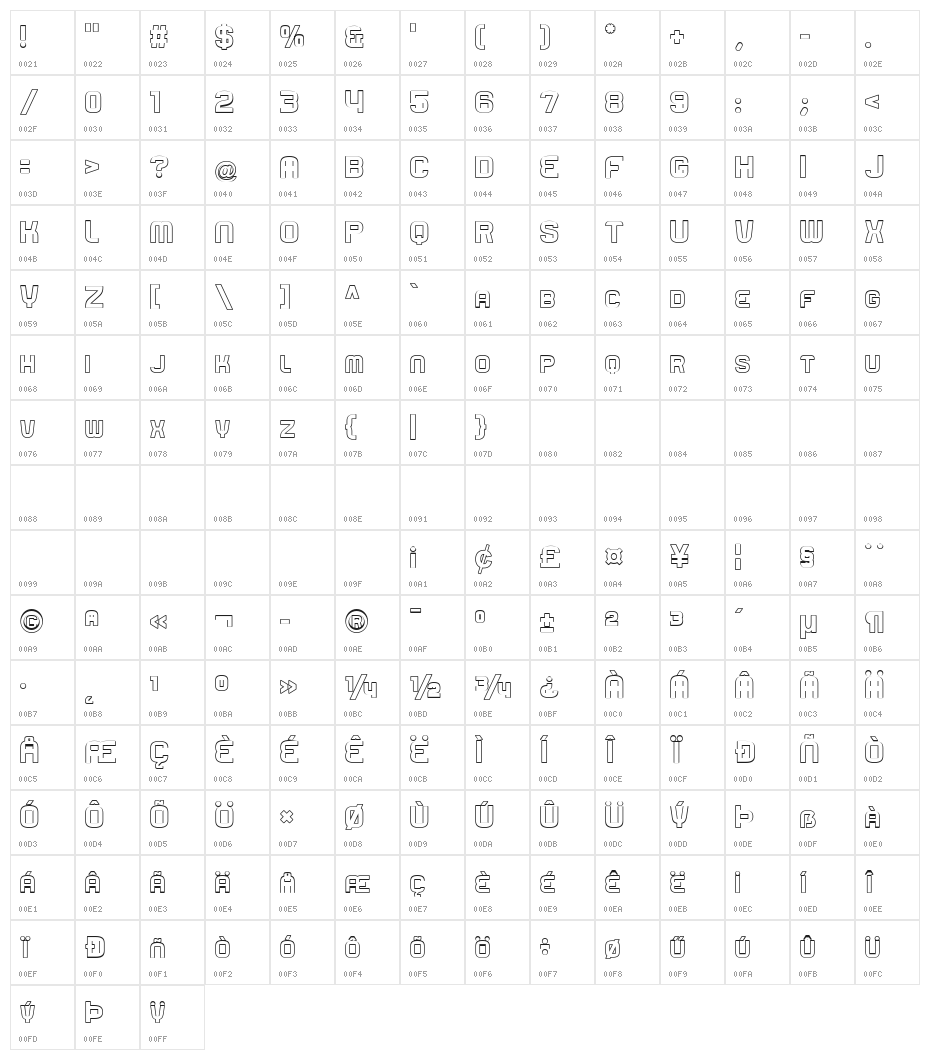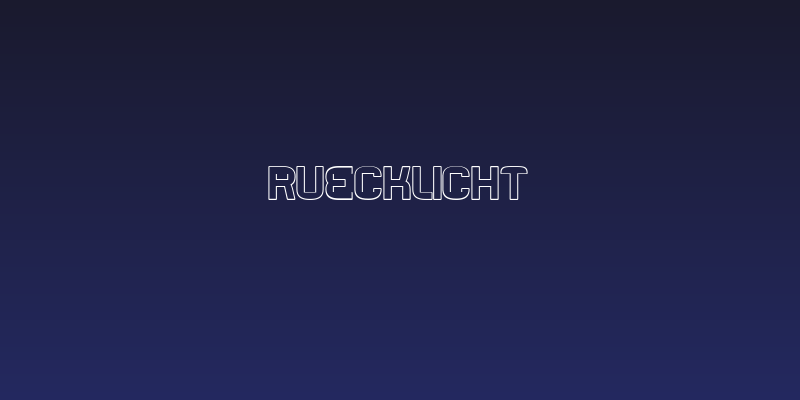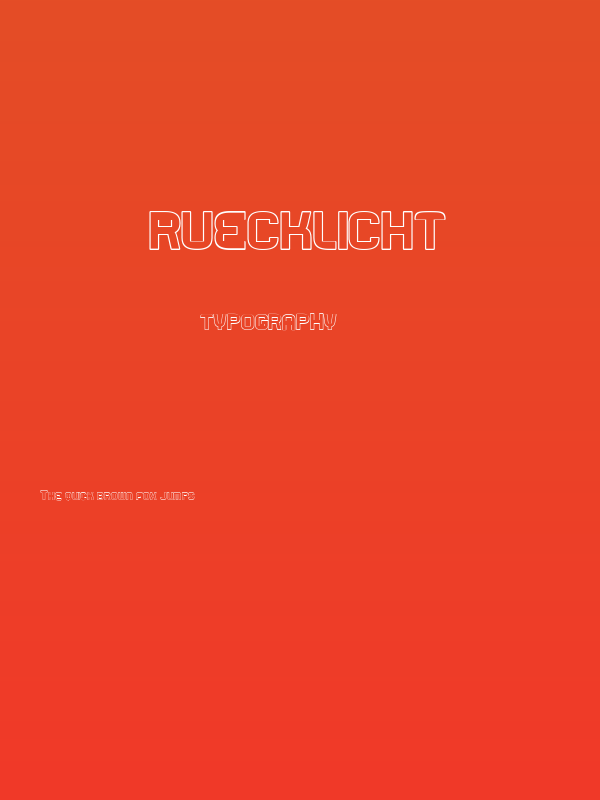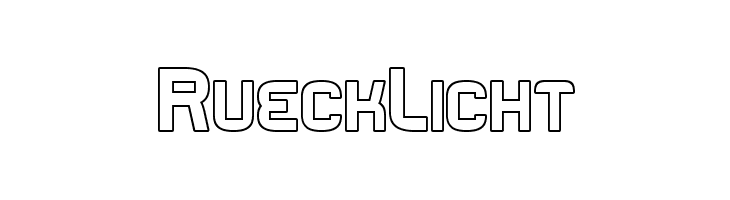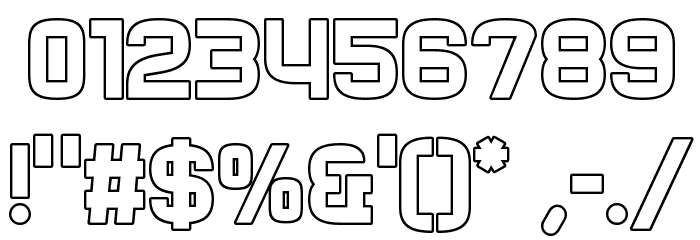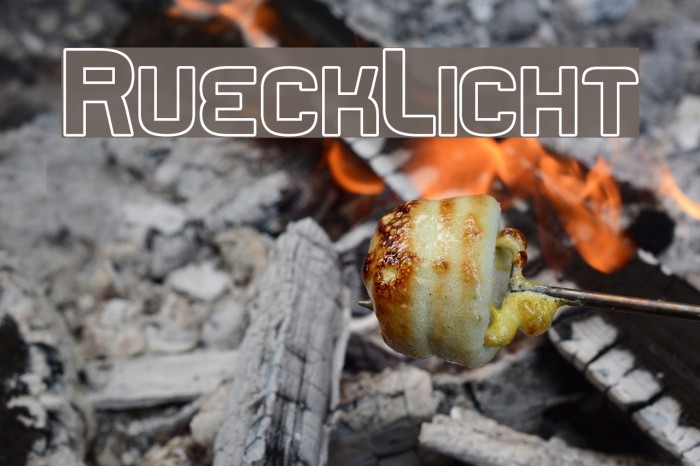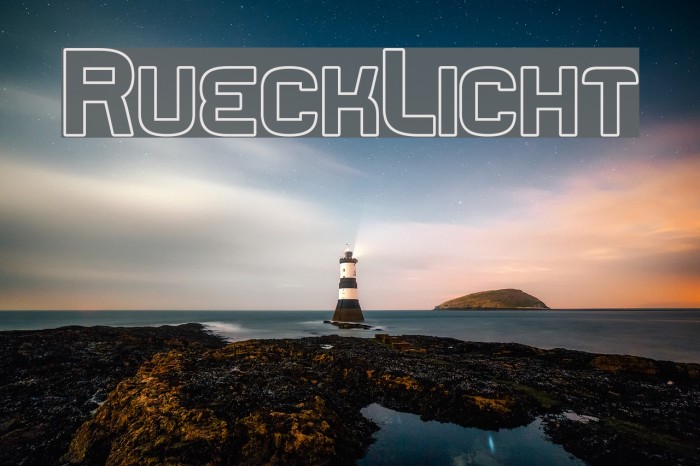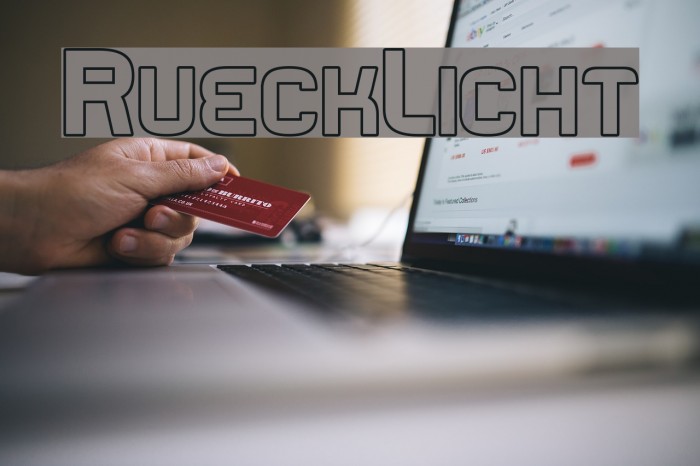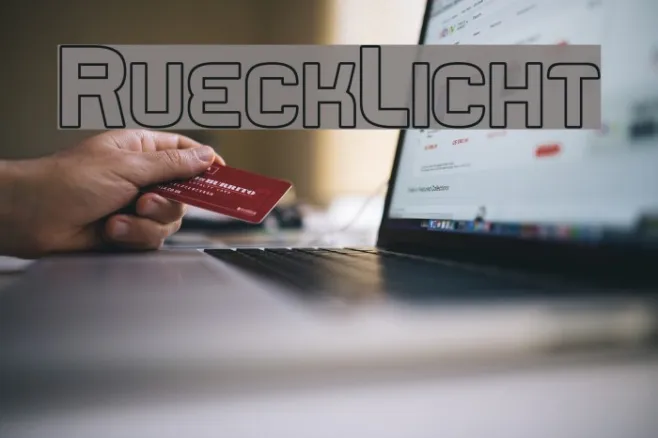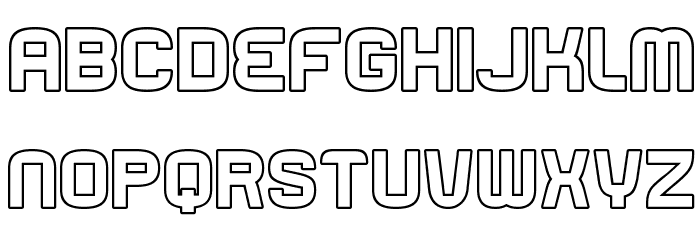
RueckLicht Font
RueckLicht Description
This font features a bold, geometric design with a hollow, outlined style. The characters are constructed with uniform line thickness, giving them a modern and structured appearance. The uppercase and lowercase letters maintain a consistent height, contributing to a cohesive look. The numerals and special characters follow the same design principles, ensuring uniformity across all glyphs. The font's clean lines and open spaces make it highly legible, even at smaller sizes. Its unique outline style adds a distinctive touch, making it suitable for eye-catching designs.